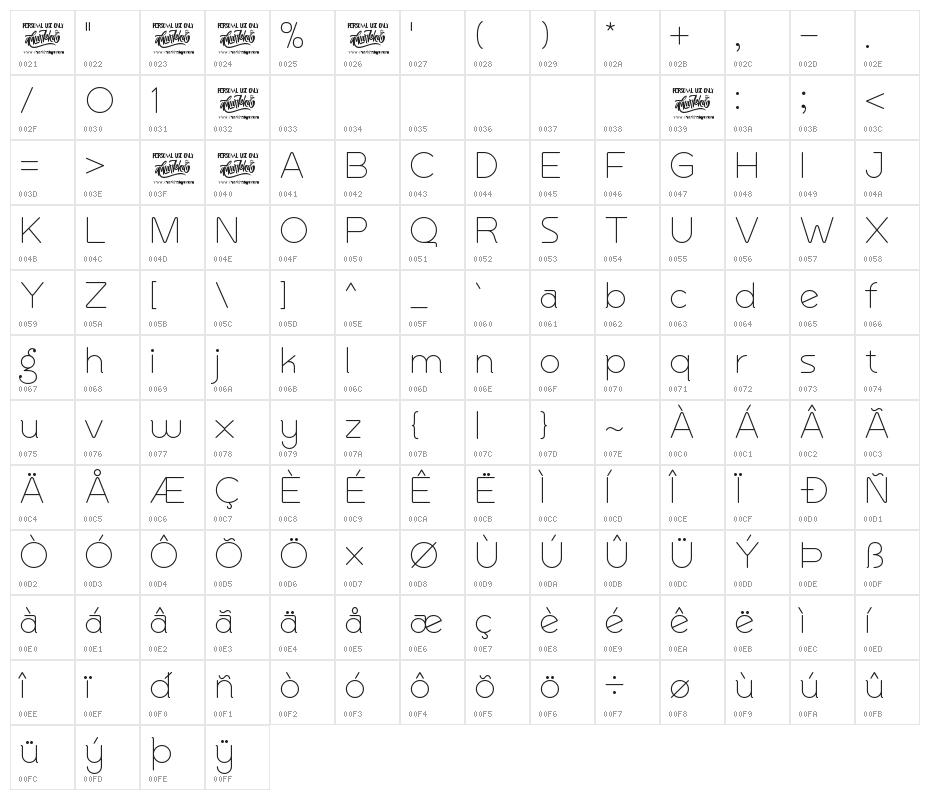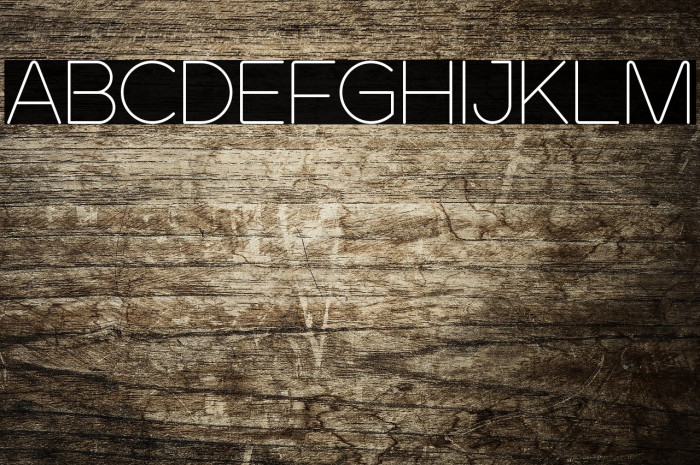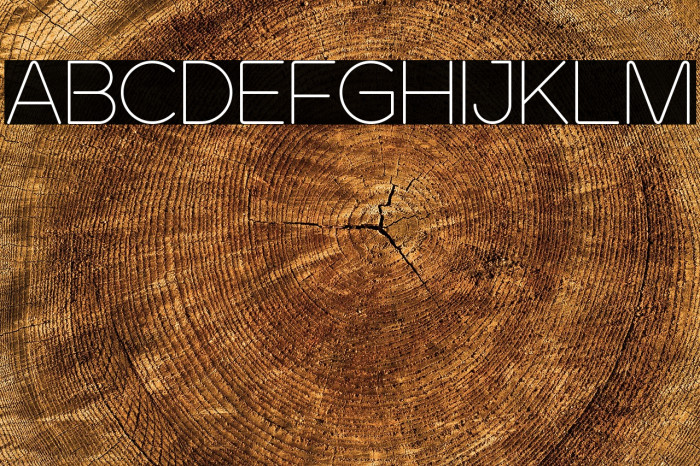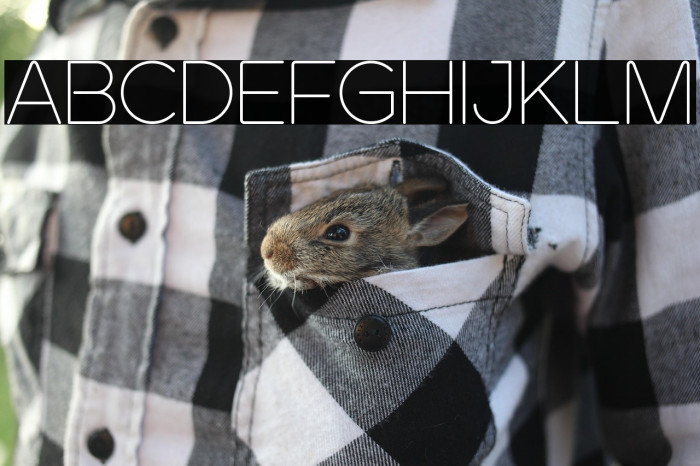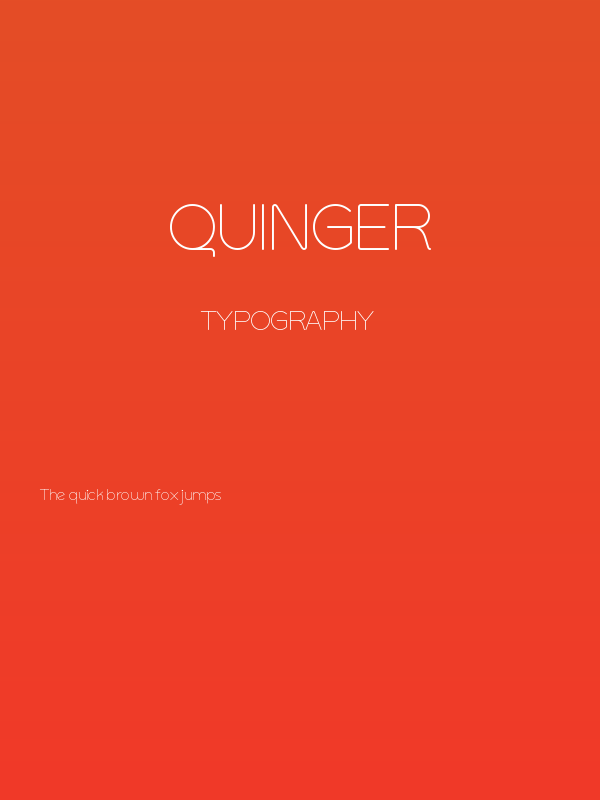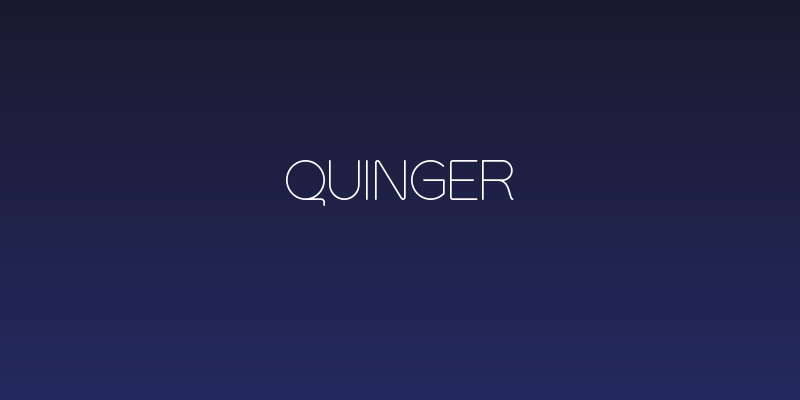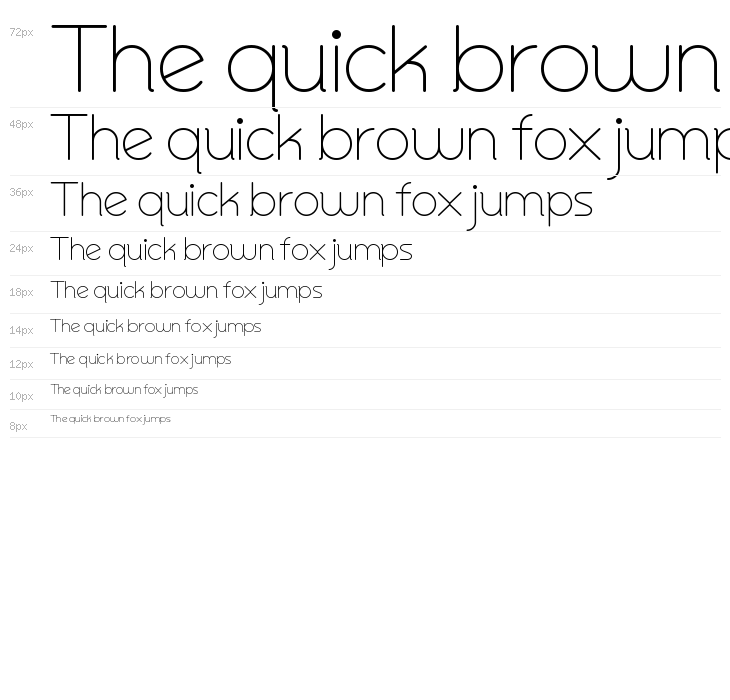
Quinger Font
Quinger Description
This font features a clean and minimalist design with geometric influences. The characters are constructed with thin, uniform lines that create a sleek and modern appearance. The uppercase letters are tall and elegant, while the lowercase letters maintain a consistent style with rounded edges and open counters. The numerals and special characters follow the same design principles, ensuring a cohesive look across all text elements. This font is ideal for projects that require a contemporary and sophisticated aesthetic.
| Use Case | Headlines, Body text, Logos |
| Proposed Projects | Ideal for branding, editorial design, web design, and advertising where a modern and clean look is desired. |